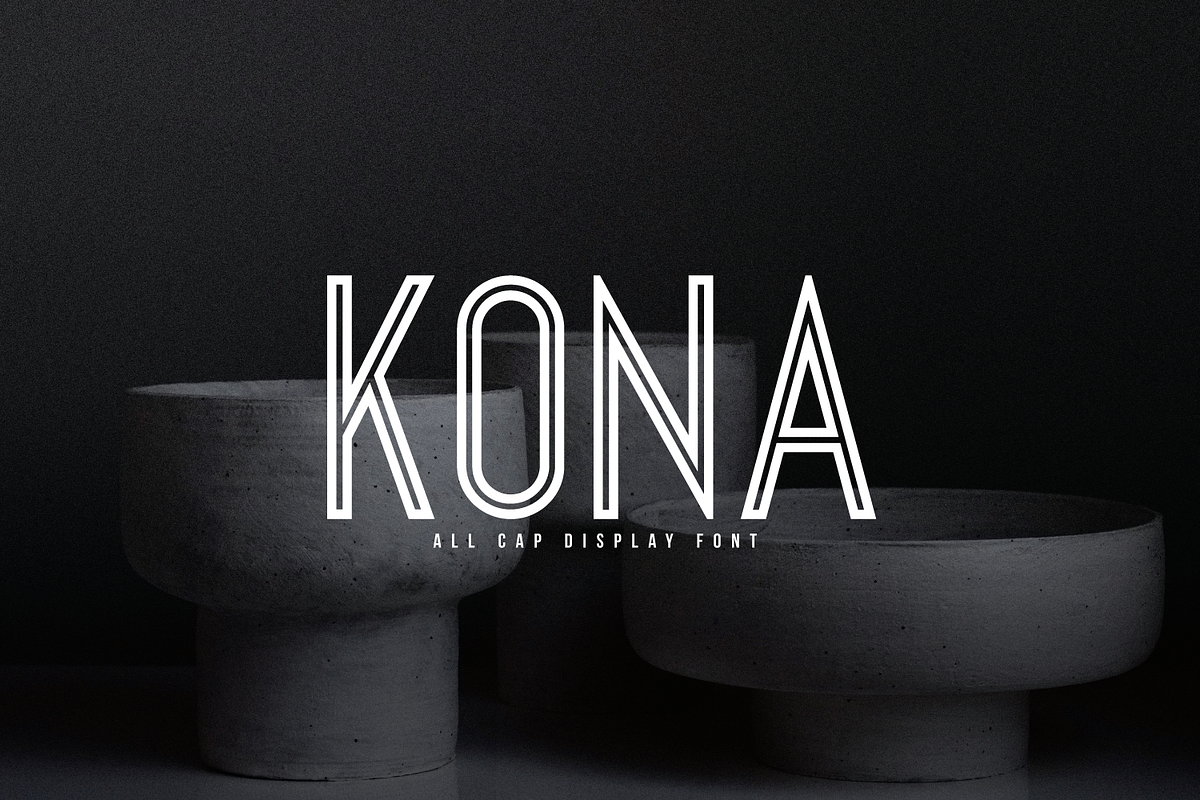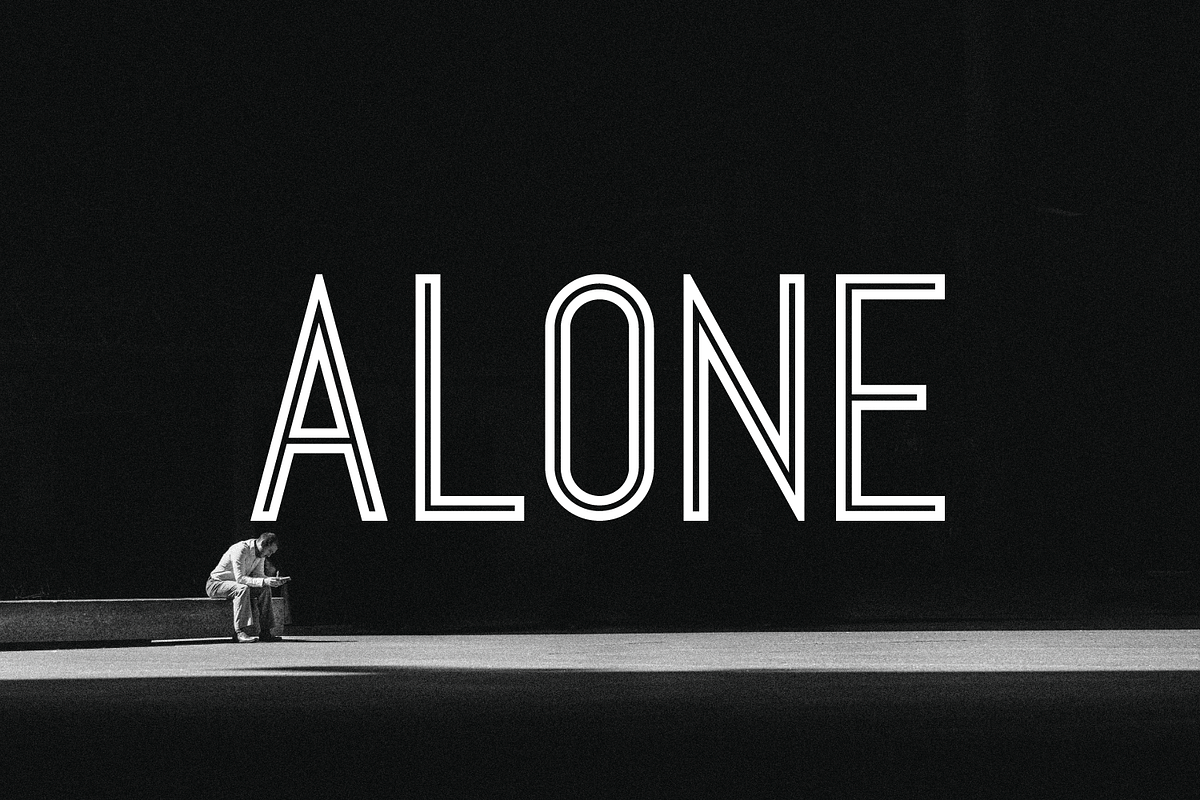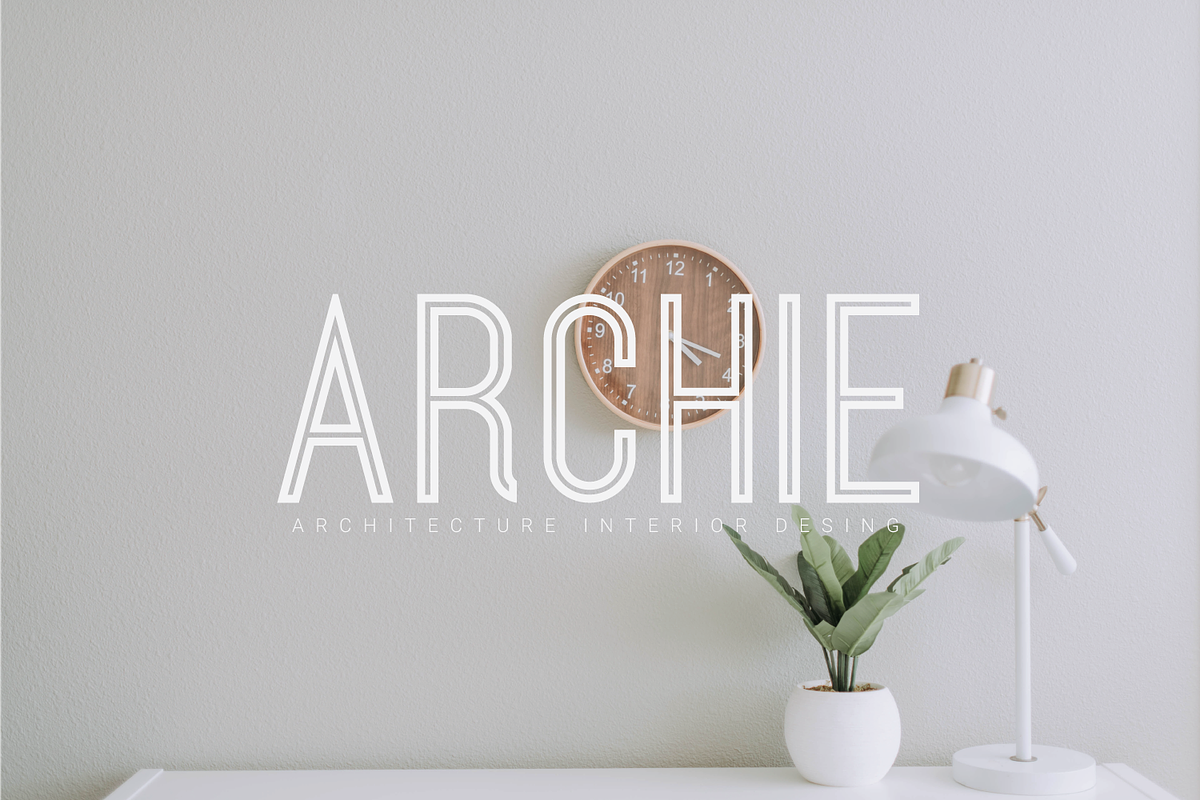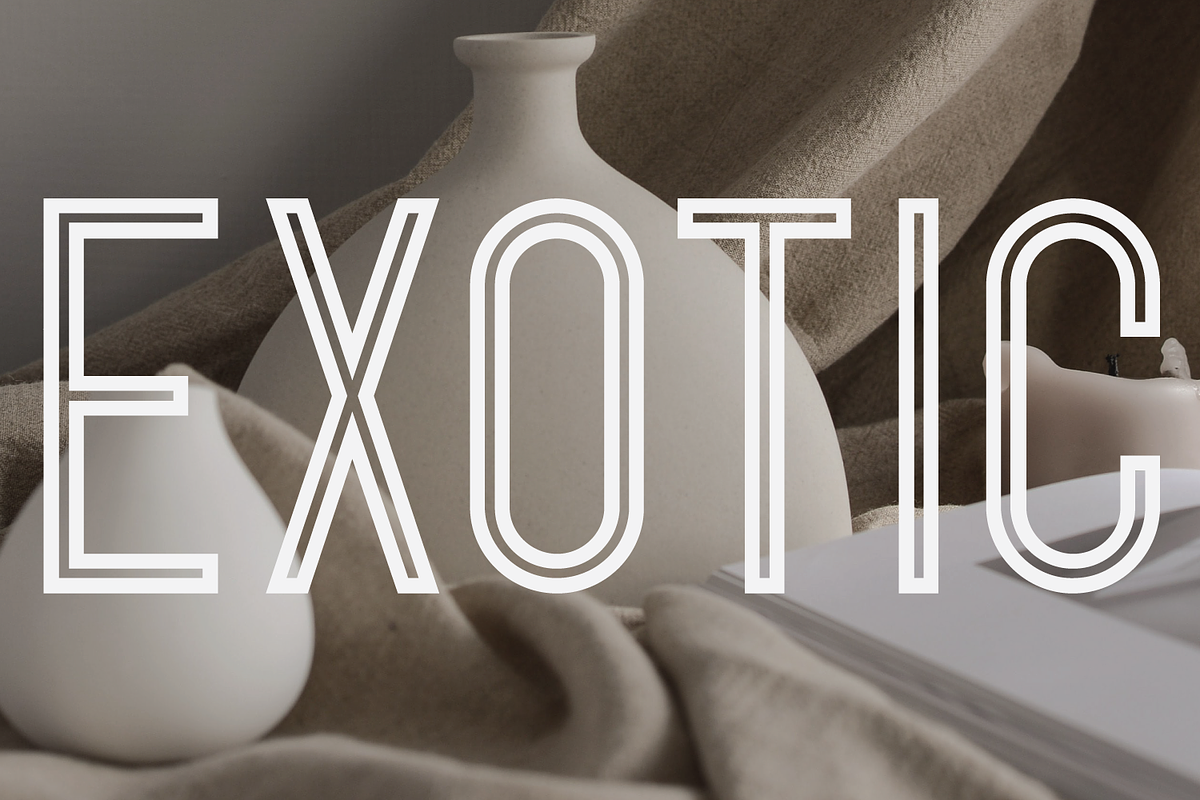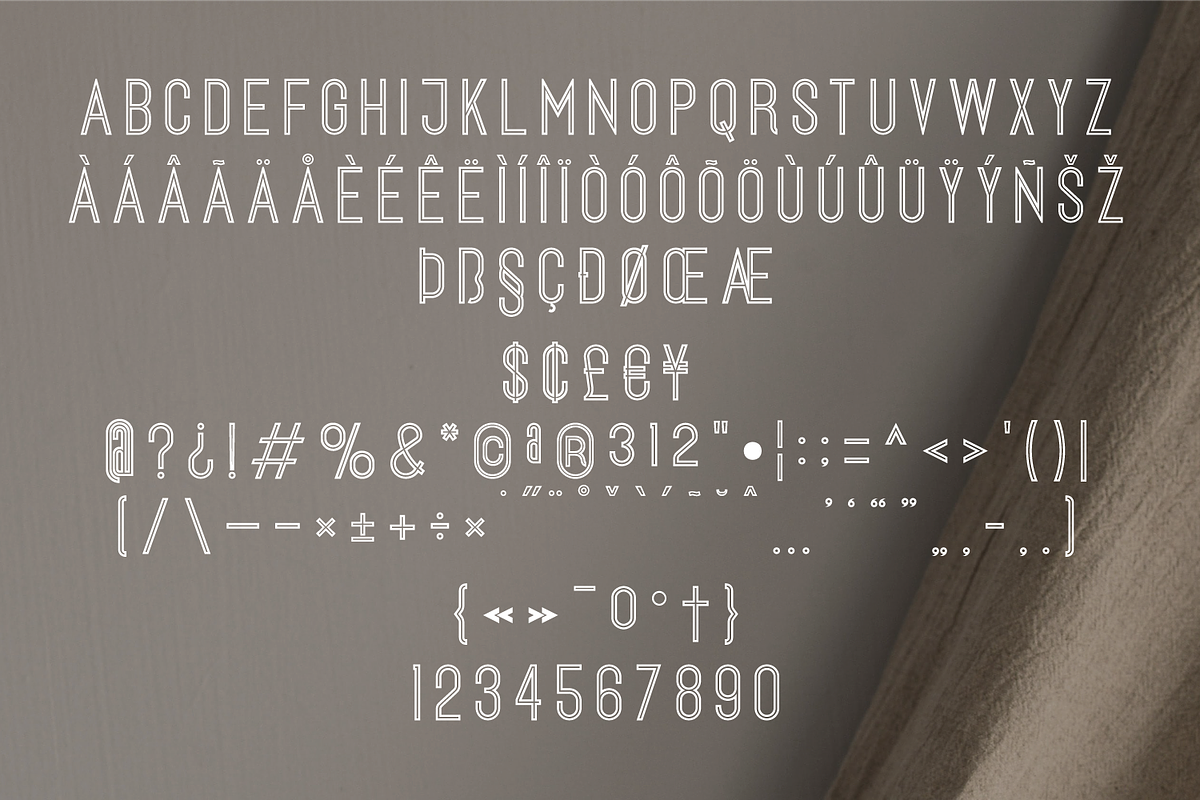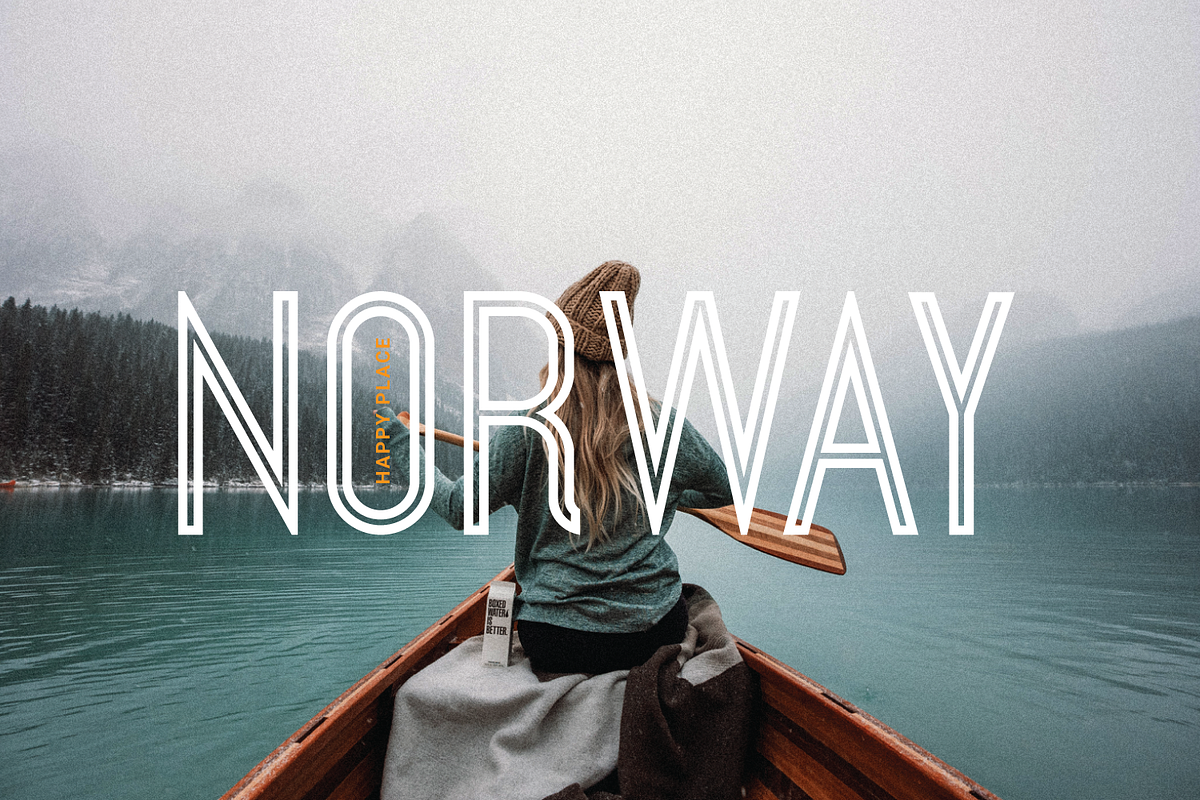
Kona
Kona clean sans serif typeface with punch line in the middle of the letters and multilingual support. This is a very versatile font that works in both large and small sizes.
Kona is perfect for branding, homeware design, product packaging, magazine headers - or just perfect as a text display against any background.